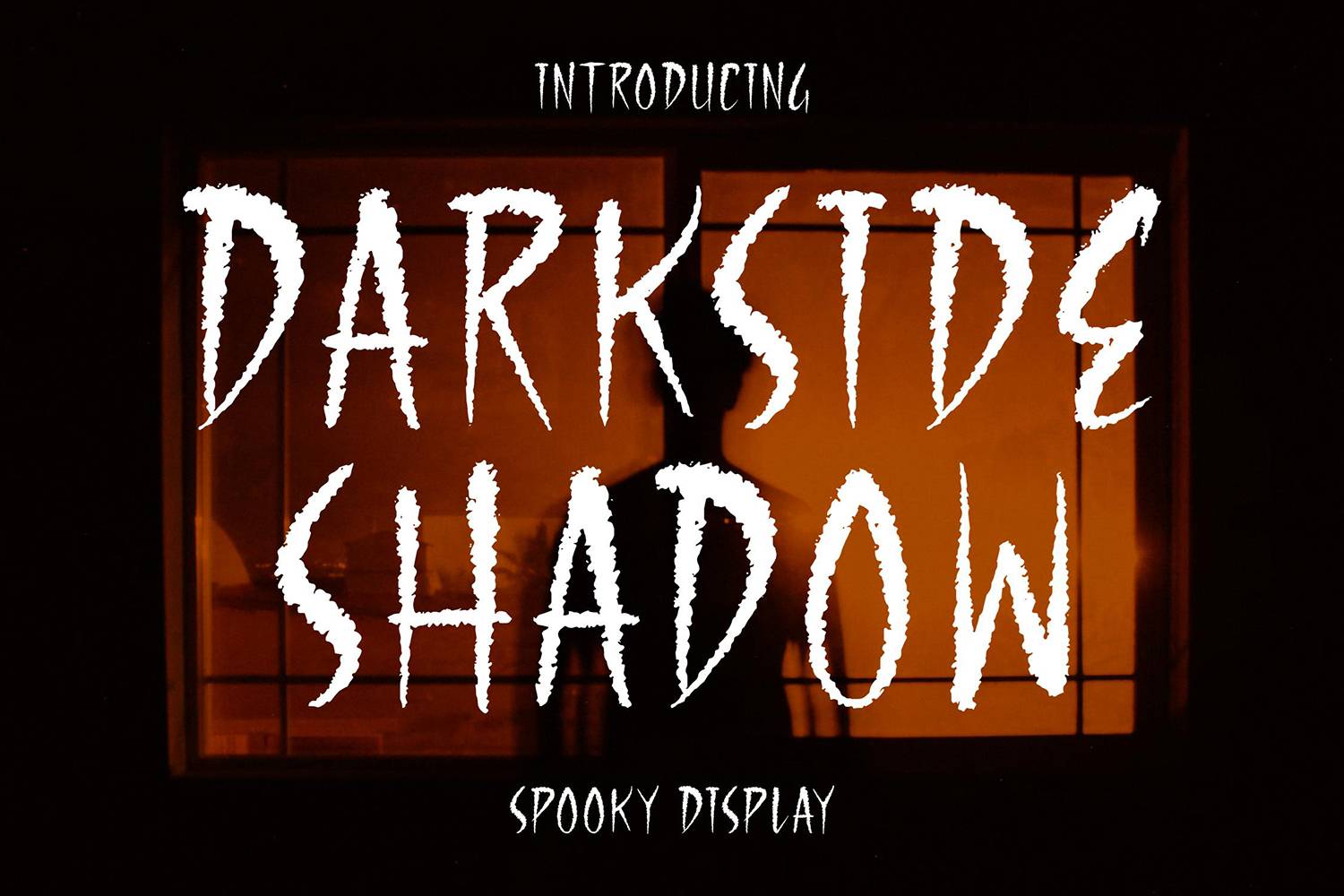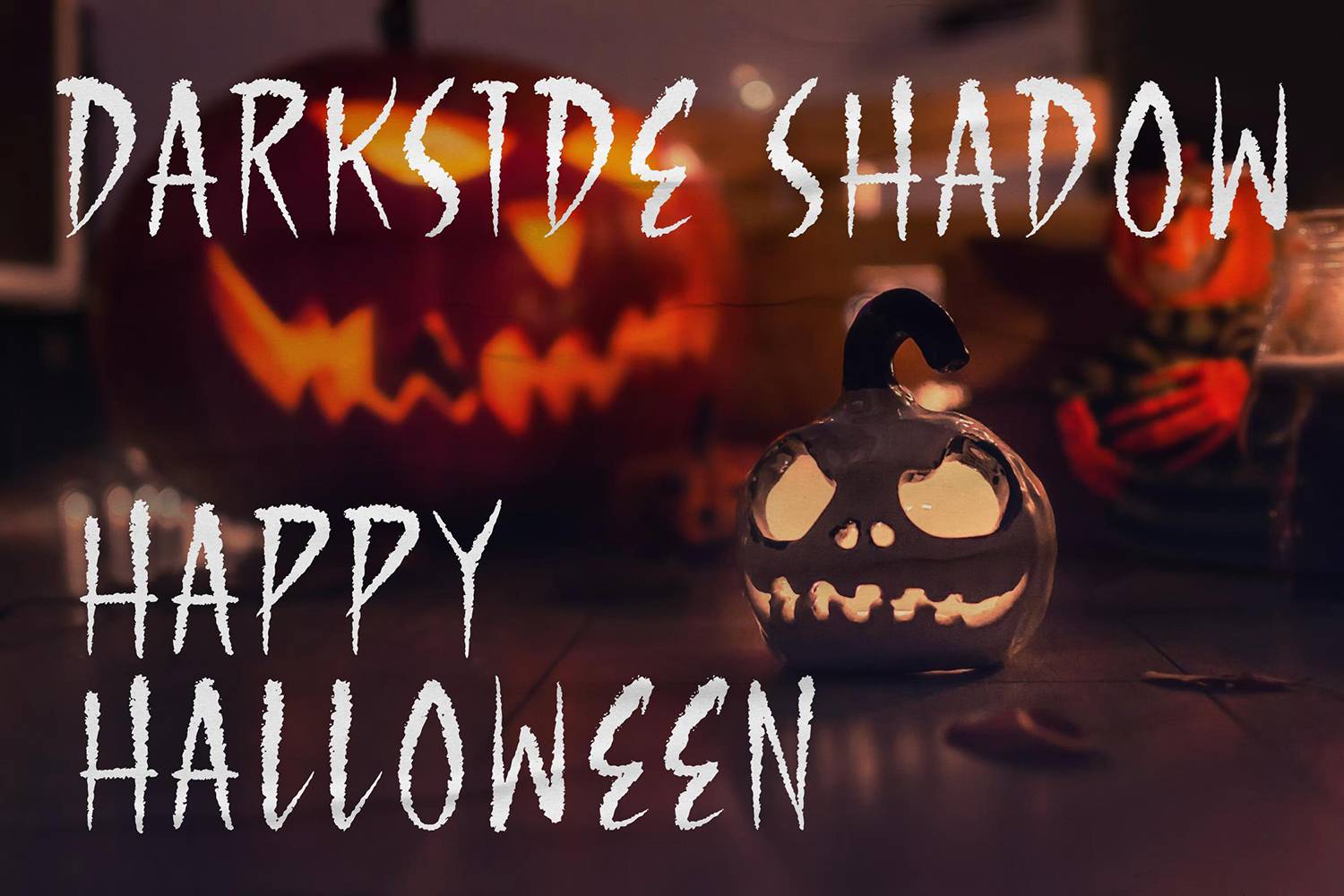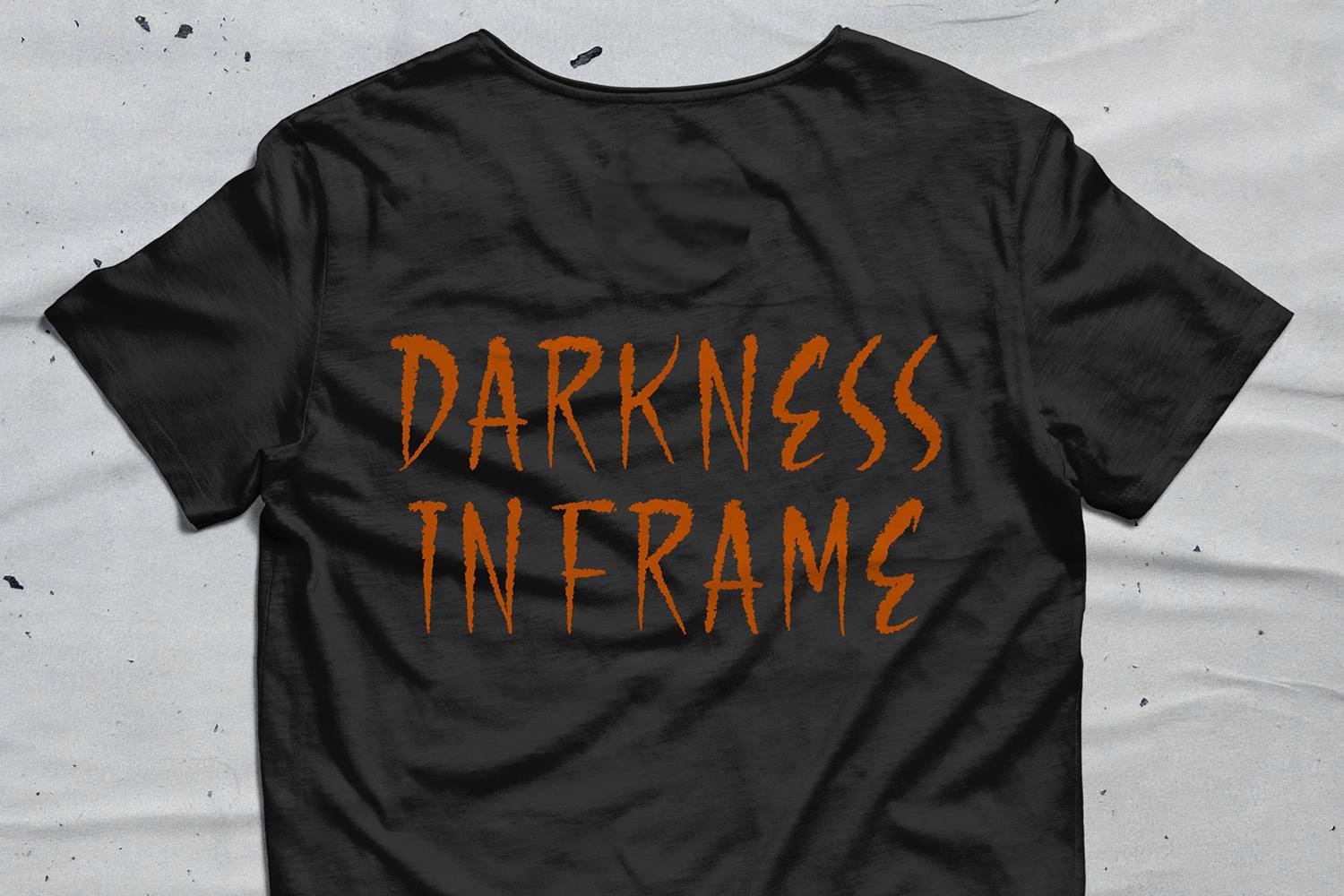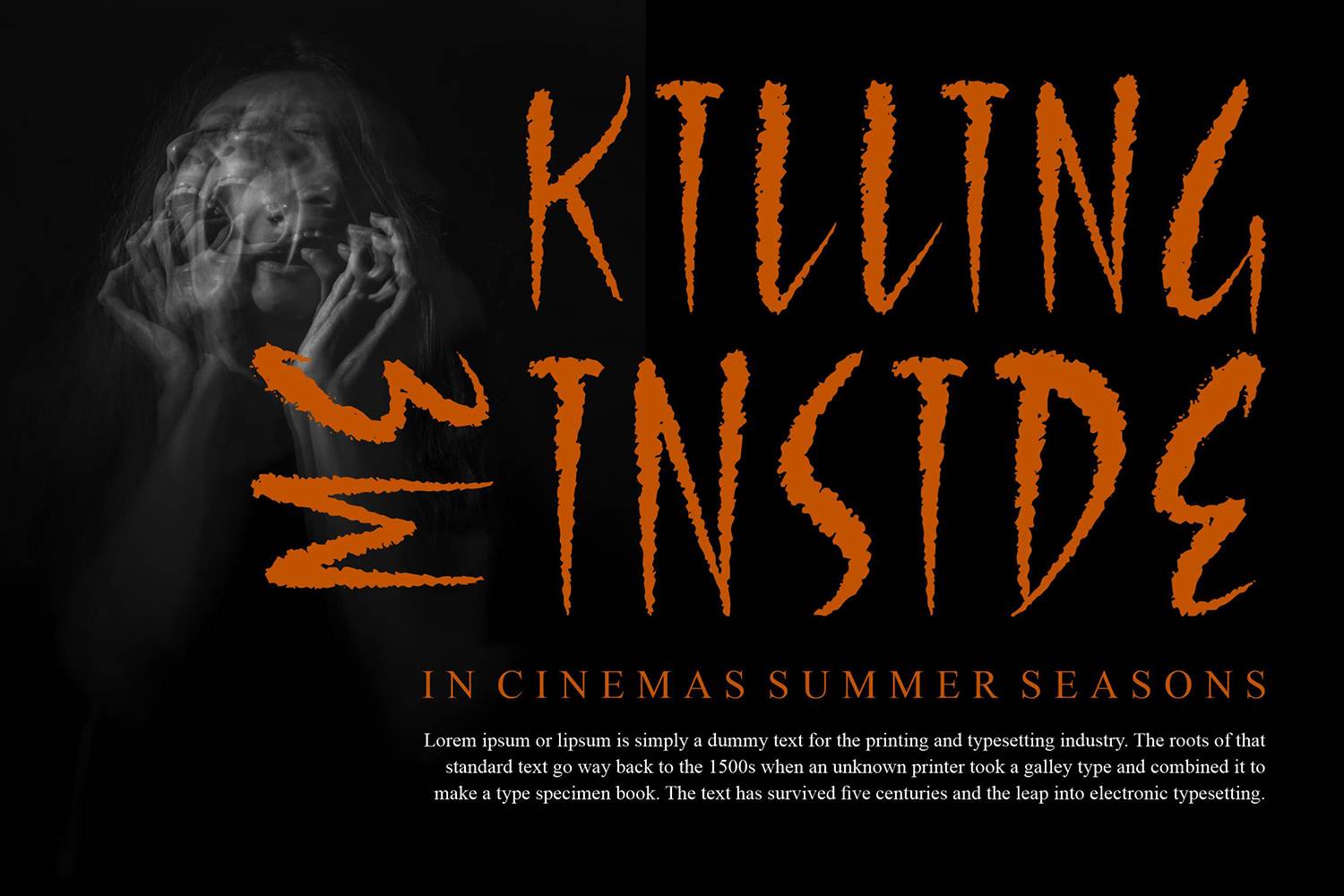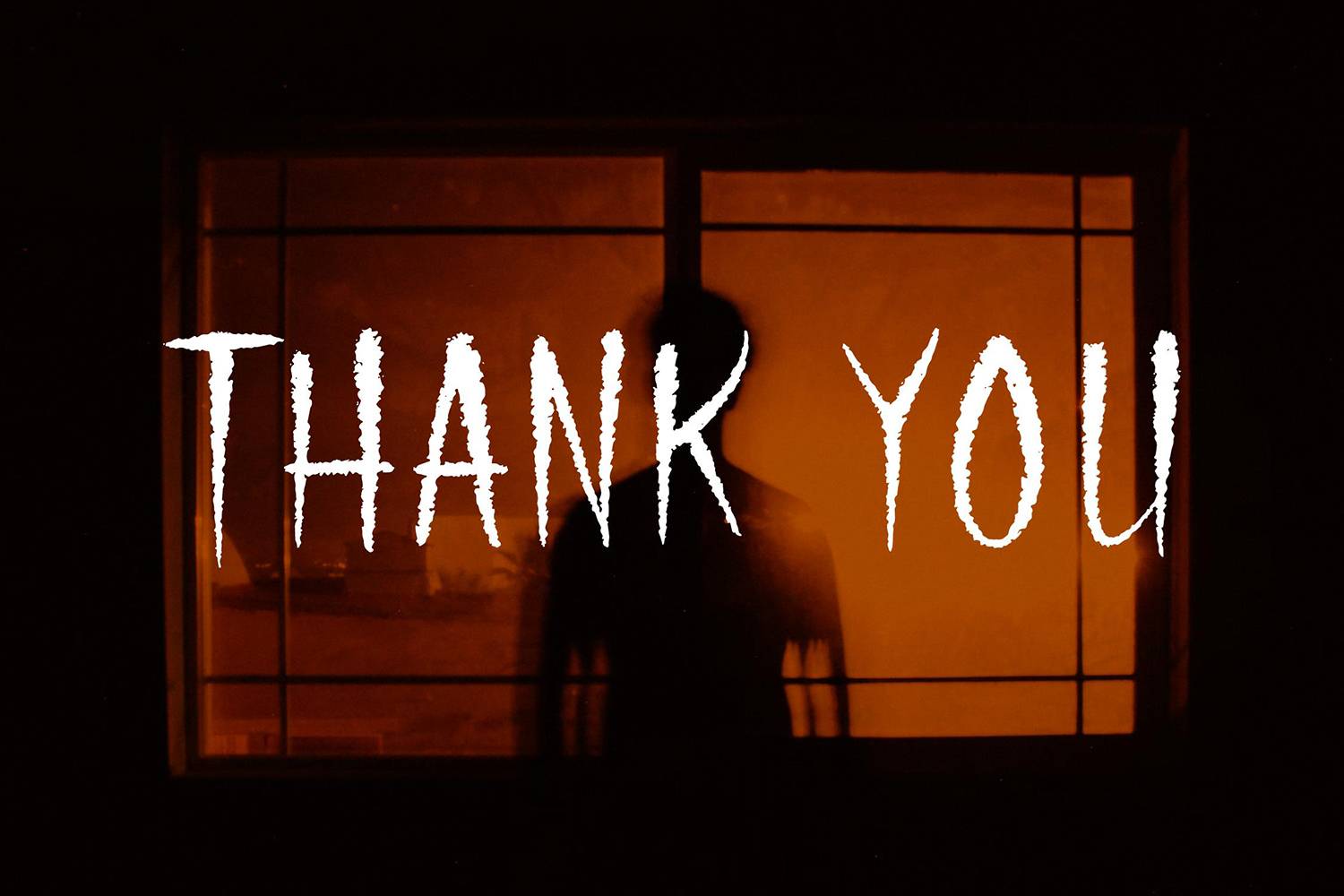
Darkside Shadow is an edgy, narrow, and tall sans serif font with a rough, hand-drawn texture that gives it a spooky, eerie vibe. Its irregular strokes and jagged edges create a dynamic, unsettling look perfect for Halloween themes, horror projects, or anything needing a dramatic, mysterious flair. This font works well for bold headlines, posters, and creative branding that aims to grab attention with a touch of dark personality.
Darkside Shadow Font
About Darkside Shadow Font